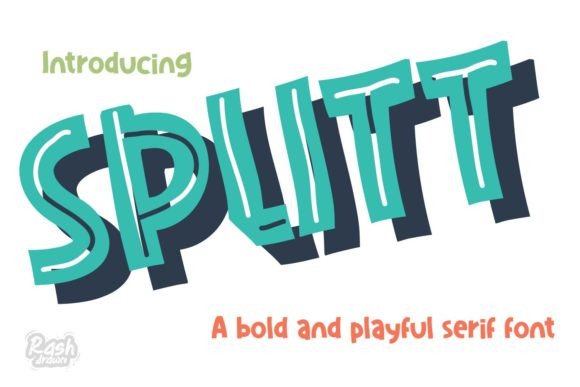
Looking for a font that can add some fun and flair to your designs? Look no further than Splitt Font! Created by Rashdrawn, this playful and bold serif font is the perfect choice for anyone who wants to make a statement with their typography.
With its thick, confident strokes and whimsical curves, Splitt Font is sure to catch the eye and add a touch of personality to any project. Whether you're designing headlines, logos, or anything in between, this font is versatile enough to handle it all.